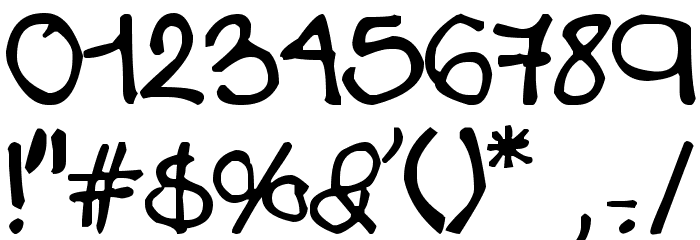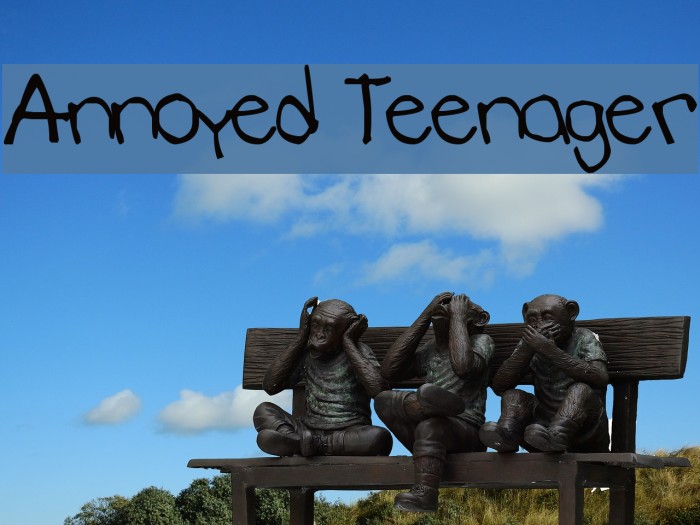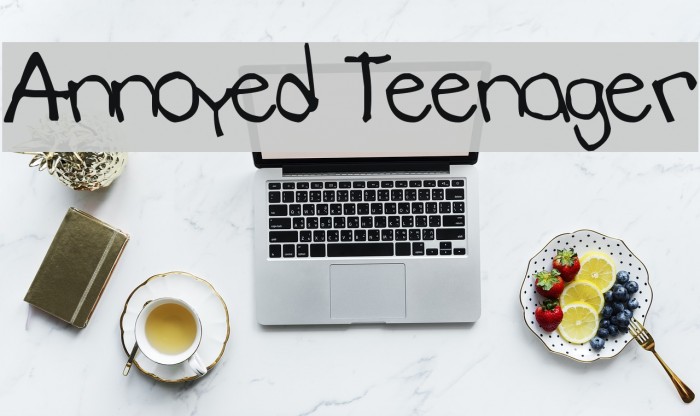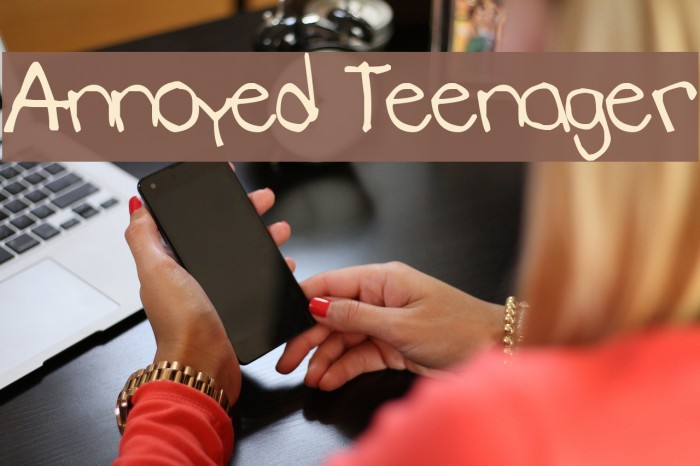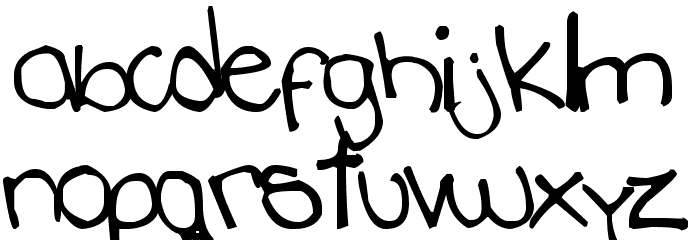
Annoyed Teenager Font
Annoyed Teenager Description
This font features a playful and casual handwritten style, characterized by its irregular, slightly tilted letters that convey a sense of spontaneity and informality. The uppercase and lowercase letters are distinct, with a quirky, youthful vibe that makes it stand out. The numbers and special characters maintain the same playful aesthetic, ensuring consistency throughout. The strokes are bold and have a medium contrast, which enhances readability while maintaining a fun, energetic appearance. This font is ideal for projects that aim to capture a light-hearted, informal tone.
A playful, handwritten font with a casual and youthful vibe from Handwritten fonts.
- Proposed Projects: Great for children's books, playful branding, casual invitations, and social media graphics.
- Overall Style: Casual, Playful
- Use Case: Headlines, Logos, Informal Text